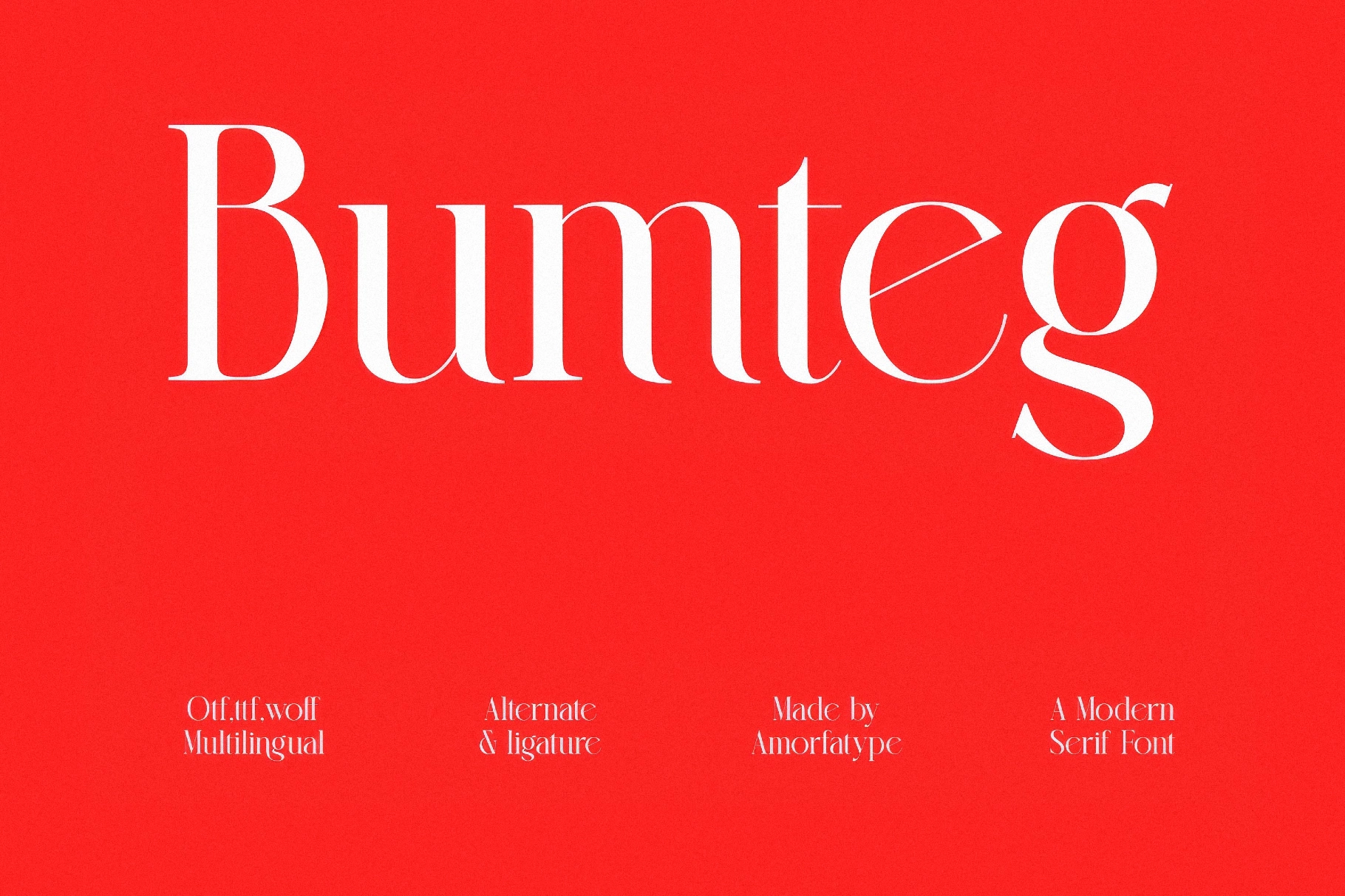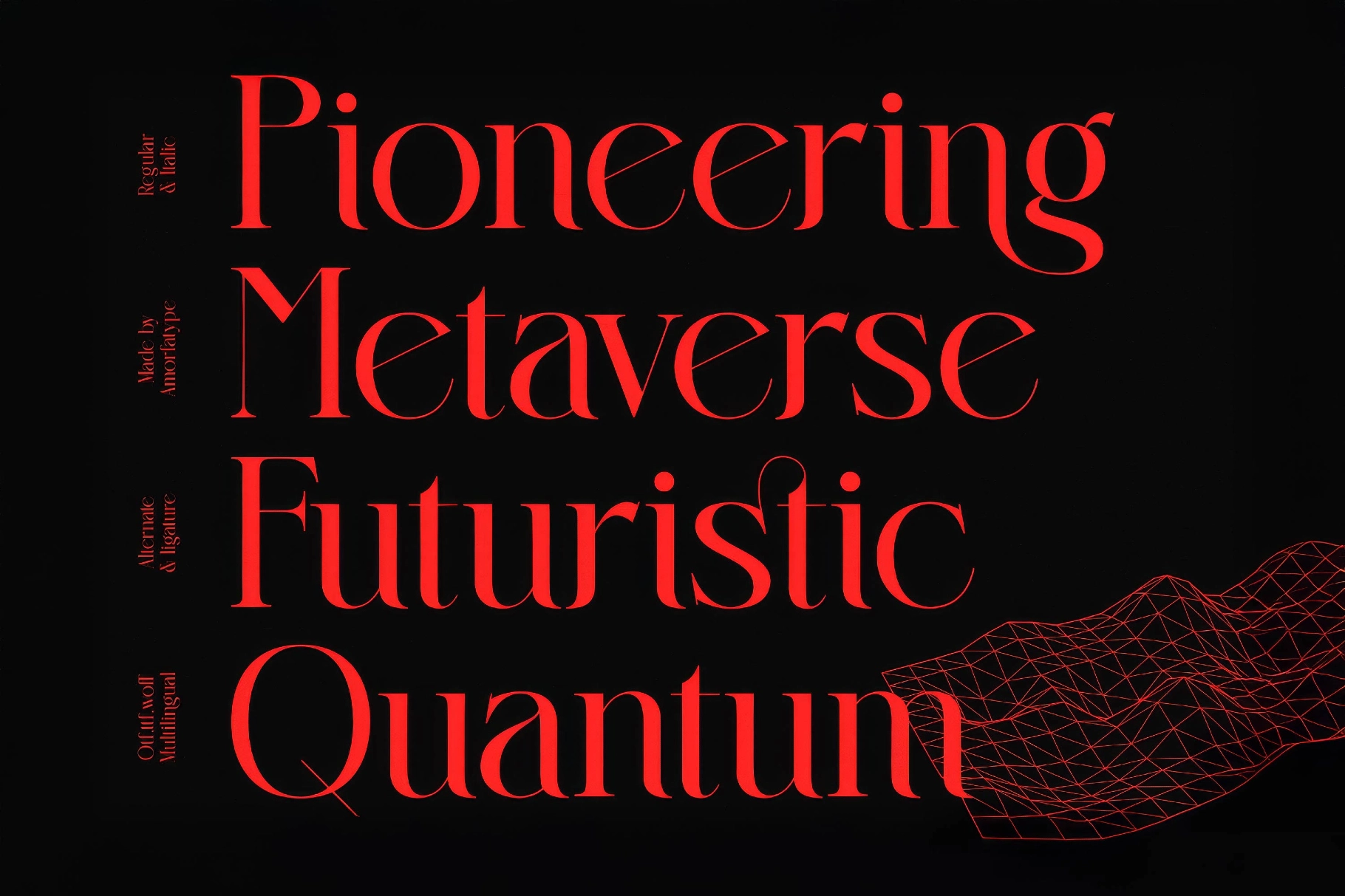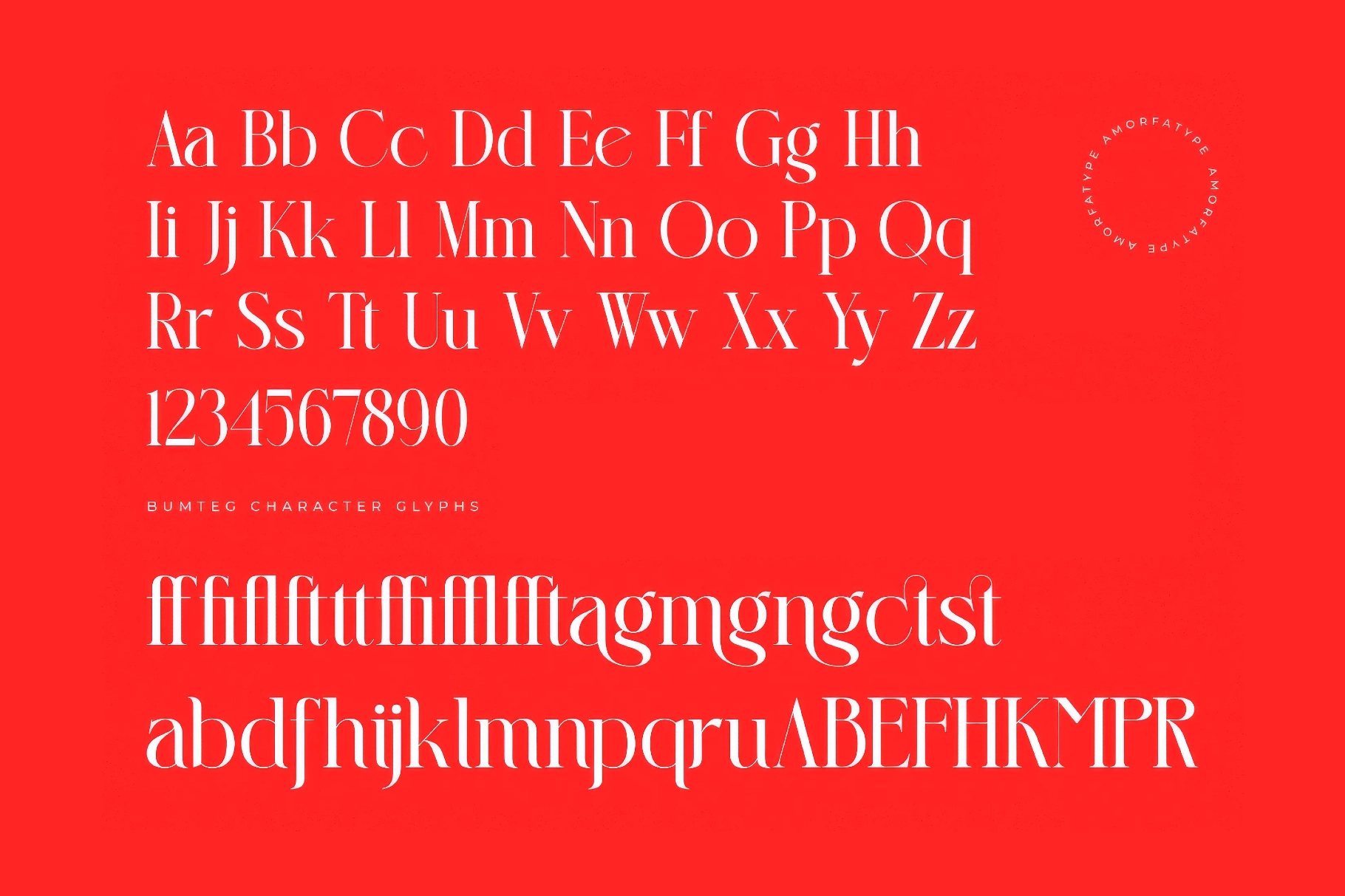
Bumteg - Modern Serif Display Font
Bumteg pairs sharp, geometric serif brackets with dramatic contrast between thick stems and hairline curves, and a tall, confident cap-height that gives headlines real presence. The look stays clean and minimal, keeping the drama in proportion and contrast instead of extra decoration — a bold serif built for both display sizes and body copy.
Regular and Italic styles cover contrast and emphasis, backed by ligatures and stylistic alternate letterforms for a less mechanical feel in logotypes and headlines. Fractions, ordinals, and superscript figures round out the technical set. Use it for luxury branding, editorial layouts, magazine headlines, packaging, invitations, and digital interfaces.
• 2 styles: Regular & Italic;
• Ligatures & stylistic alternate letterforms;
• Fractions, ordinals & superscript figures;
• Kerning support;